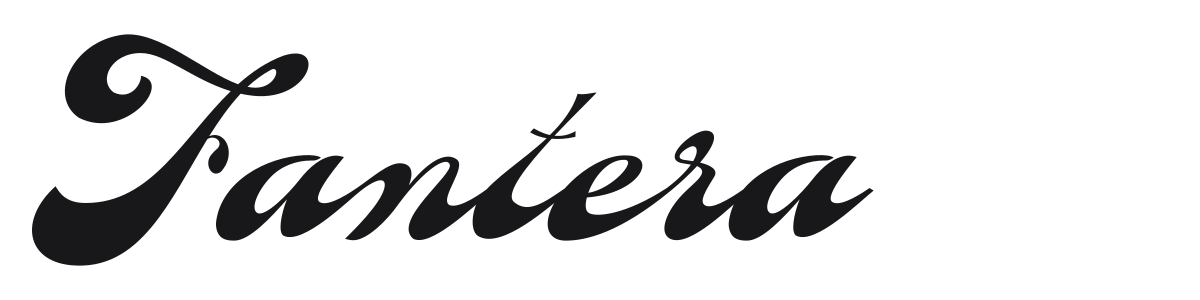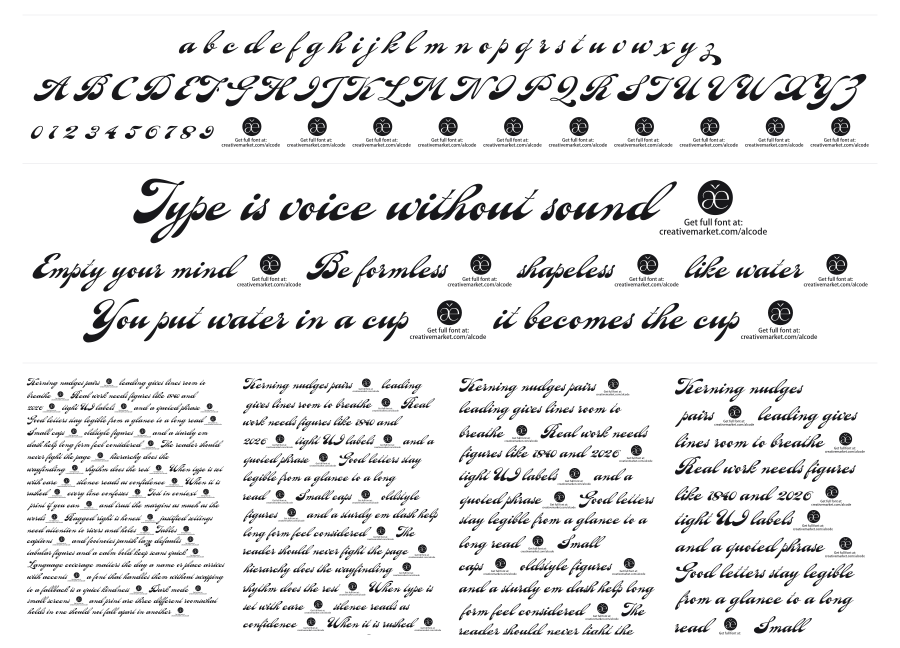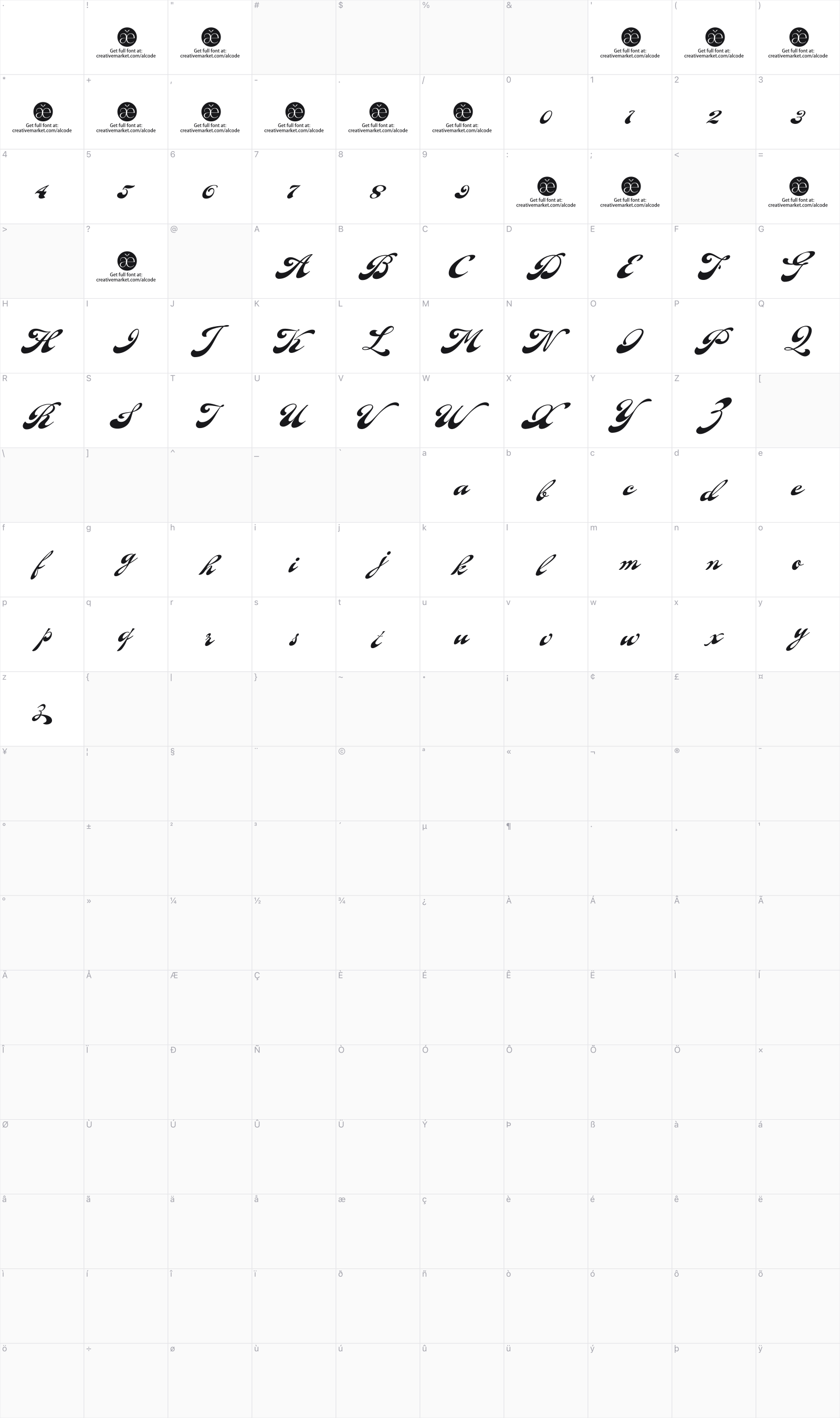
Fantera
Fantera is a bold calligraphic script with dramatic stroke contrast and sweeping, connected flourishes. The thick-and-thin rhythm gives it the feel of a brush or pointed-pen drawn at speed, with energy that works well at large display sizes. It sits naturally in branding contexts that need something romantic and expressive.